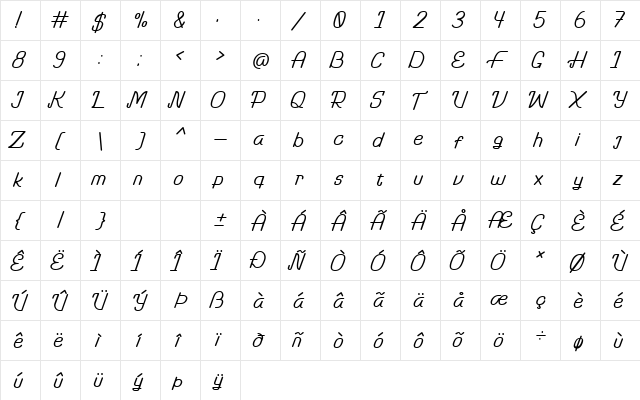
Ramona Kiev Regular
Design Context for Ramona Kiev Typeface
Ramona Kiev is a composed and adaptable typeface that performs quietly and consistently across a wide range of design contexts.